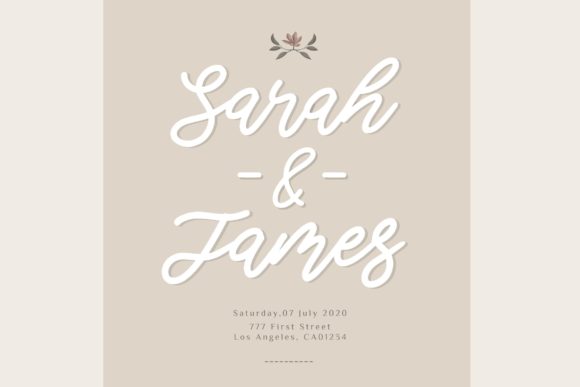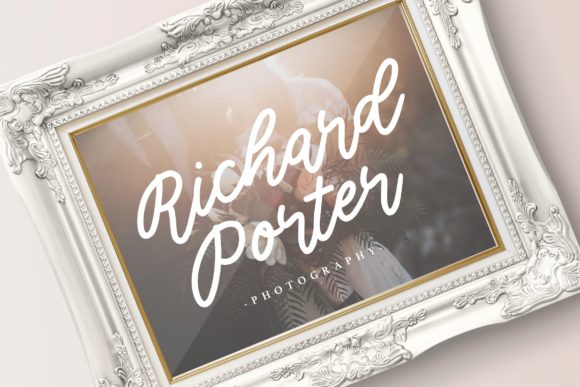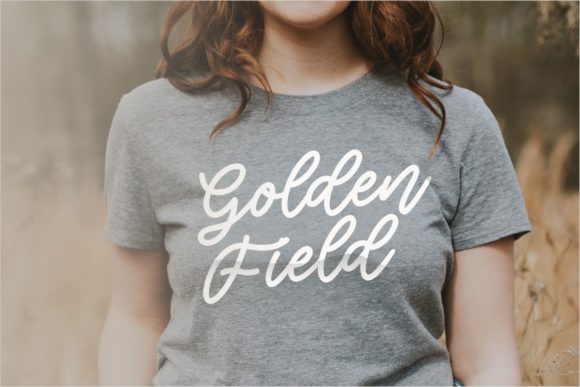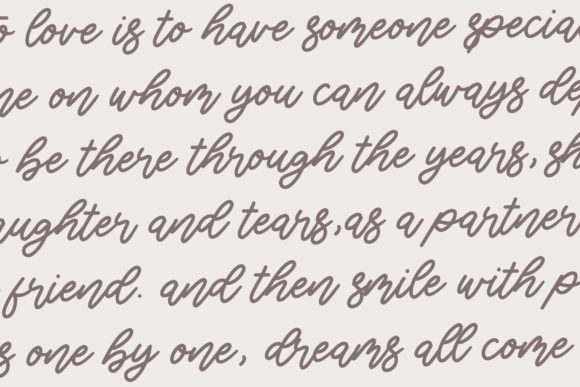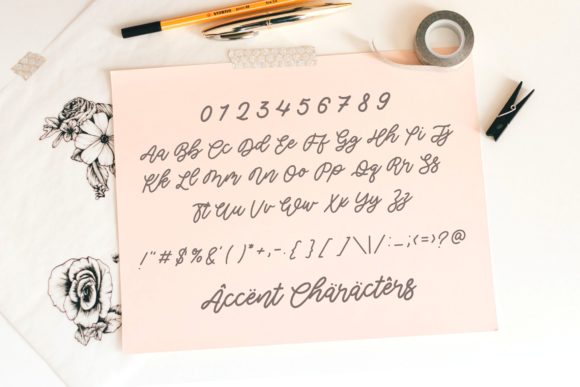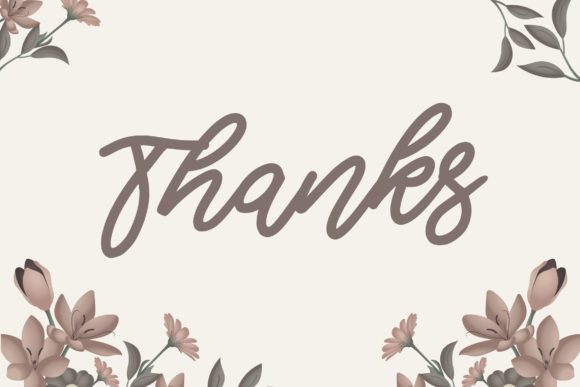
Introducing Amertano Font: Elevate Your Designs with Elegance
Are you on the hunt for a font that exudes elegance and sophistication? Look no further than Amertano, a stunning flowing handwritten font that is sure to capture your heart. With its incredibly distinct and timeless style, Amertano is the perfect addition to your favorite projects, allowing you to create spectacular designs that leave a lasting impression.
The Characteristics of Amertano Font
Amertano is a beautifully crafted font that boasts an elegant touch, making it ideal for designers and crafters seeking to add a touch of refinement to their work. Its flowing handwritten style is characterized by:
- Fluid Lines: Amertano’s curves and lines flow effortlessly, creating a sense of movement and fluidity that adds a dynamic touch to any design.
- Elegant Touch: The font’s elegant feel is perfect for projects that require a sophisticated and refined aesthetic, such as luxury branding, high-end fashion, and upscale wedding designs.
- Distinct Style: Amertano’s unique style sets it apart from other fonts, making it a great choice for designers looking to create distinctive and memorable designs.
- Timeless Appeal: The font’s classic feel ensures that it will remain relevant for years to come, making it a valuable addition to your font library.
Amertano’s versatility makes it suitable for a wide range of projects, including:
- Branding and Logo Design: Use Amertano to create a sophisticated and elegant brand identity that reflects your business’s values and personality.
- Wedding and Event Design: Add a touch of luxury and refinement to your wedding invitations, stationery, and event materials with Amertano’s beautiful script.
- Fashion and Beauty: Amertano is perfect for fashion and beauty brands looking to create a high-end aesthetic that exudes elegance and sophistication.
- Packaging and Product Design: Use Amertano to create eye-catching packaging and product designs that stand out on store shelves.
Tips for Using Amertano Font
To get the most out of Amertano, here are a few tips to keep in mind:
- Pair with Contrasting Fonts: Combine Amertano with a contrasting font to create visual interest and add depth to your design.
- Use for Headings and Titles: Amertano is perfect for headings and titles, where its elegant style can shine.
- Experiment with Colors: Try pairing Amertano with different colors to create a unique and eye-catching design.
Amertano font is a beautiful and elegant addition to any design project. With its flowing handwritten style, distinct characteristics, and timeless appeal, it’s the perfect choice for designers and crafters seeking to create sophisticated and refined designs. Whether you’re working on a branding project, wedding design, or fashion campaign, Amertano is sure to elevate your work and leave a lasting impression.